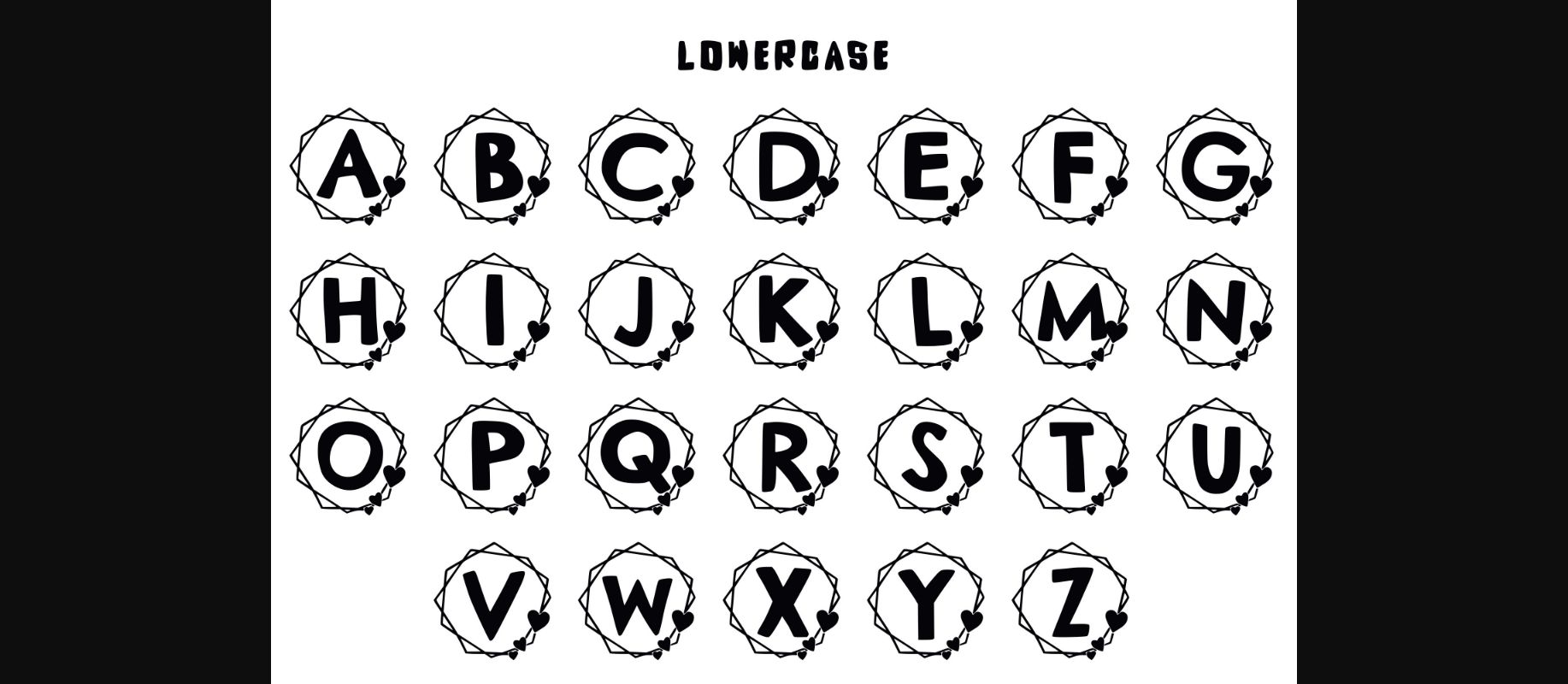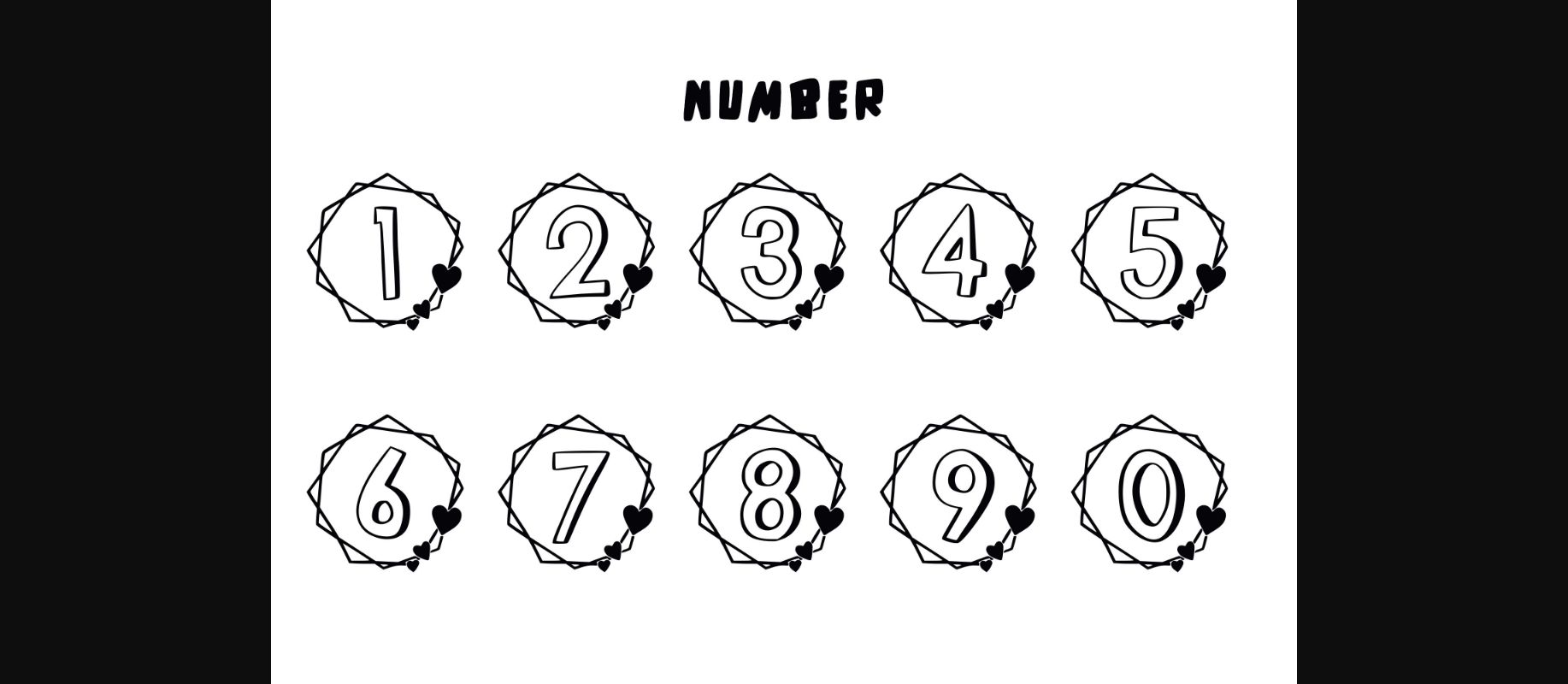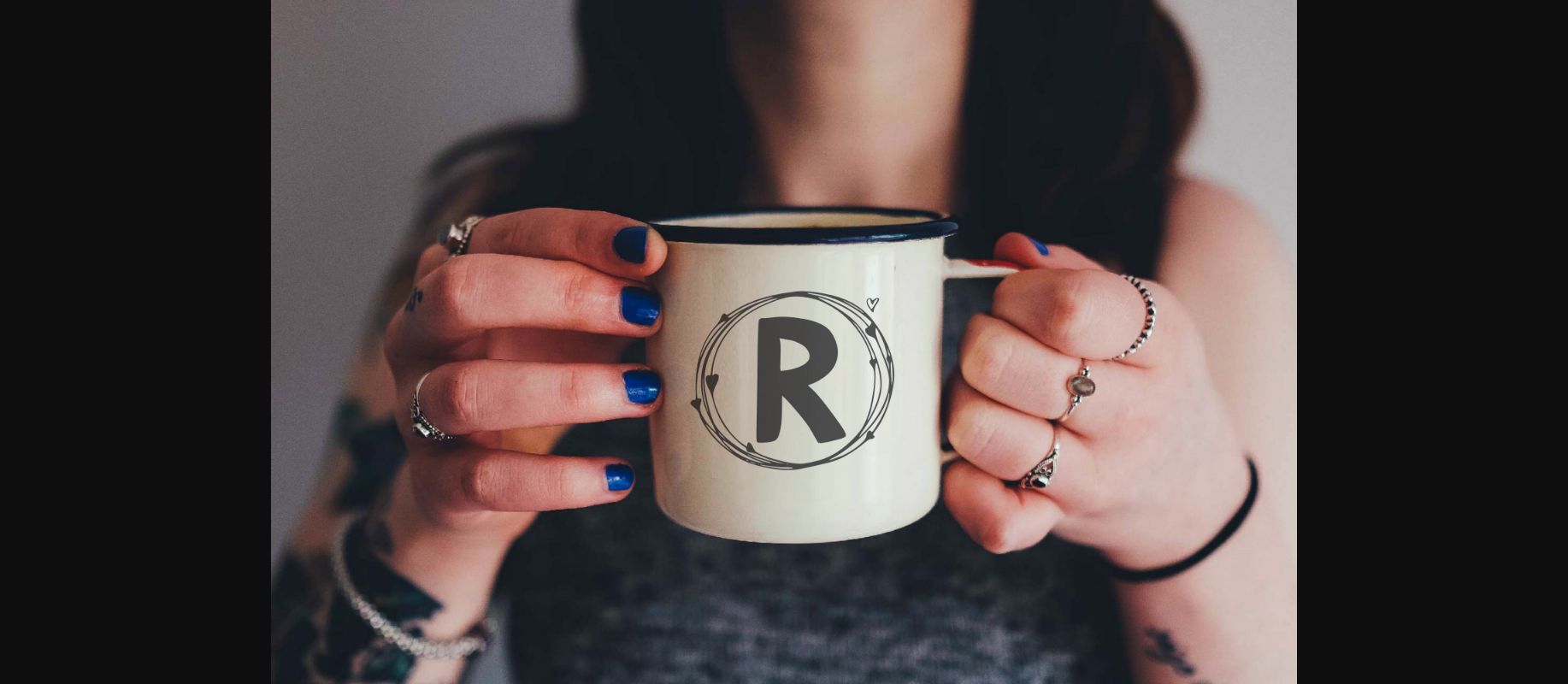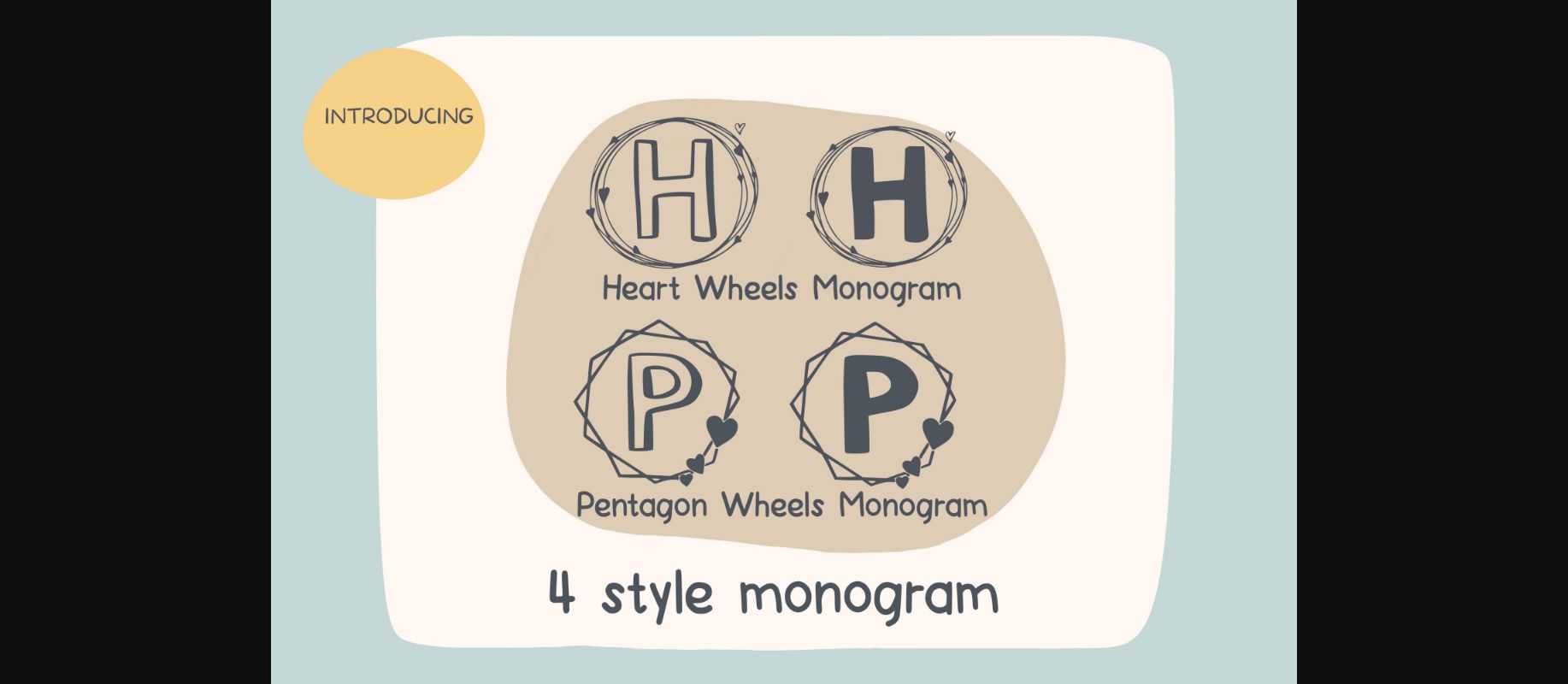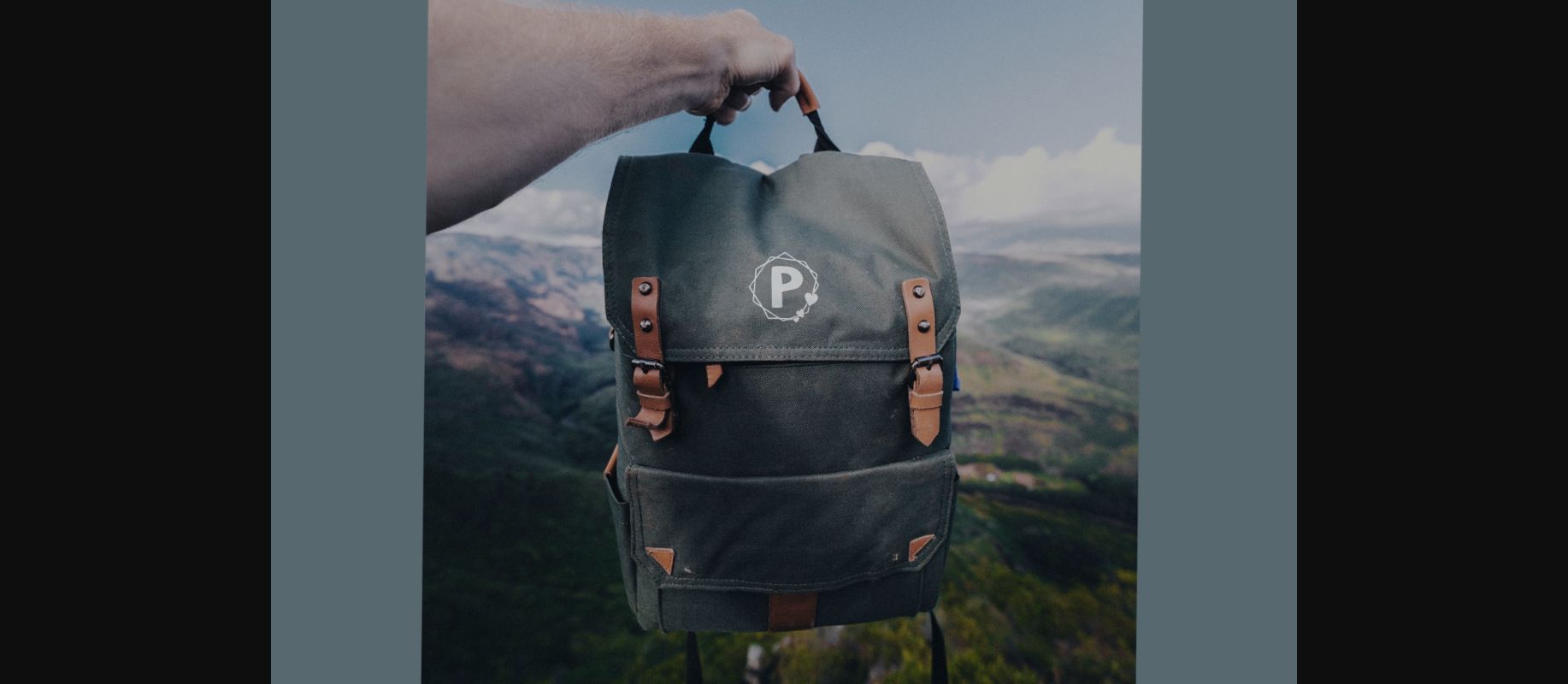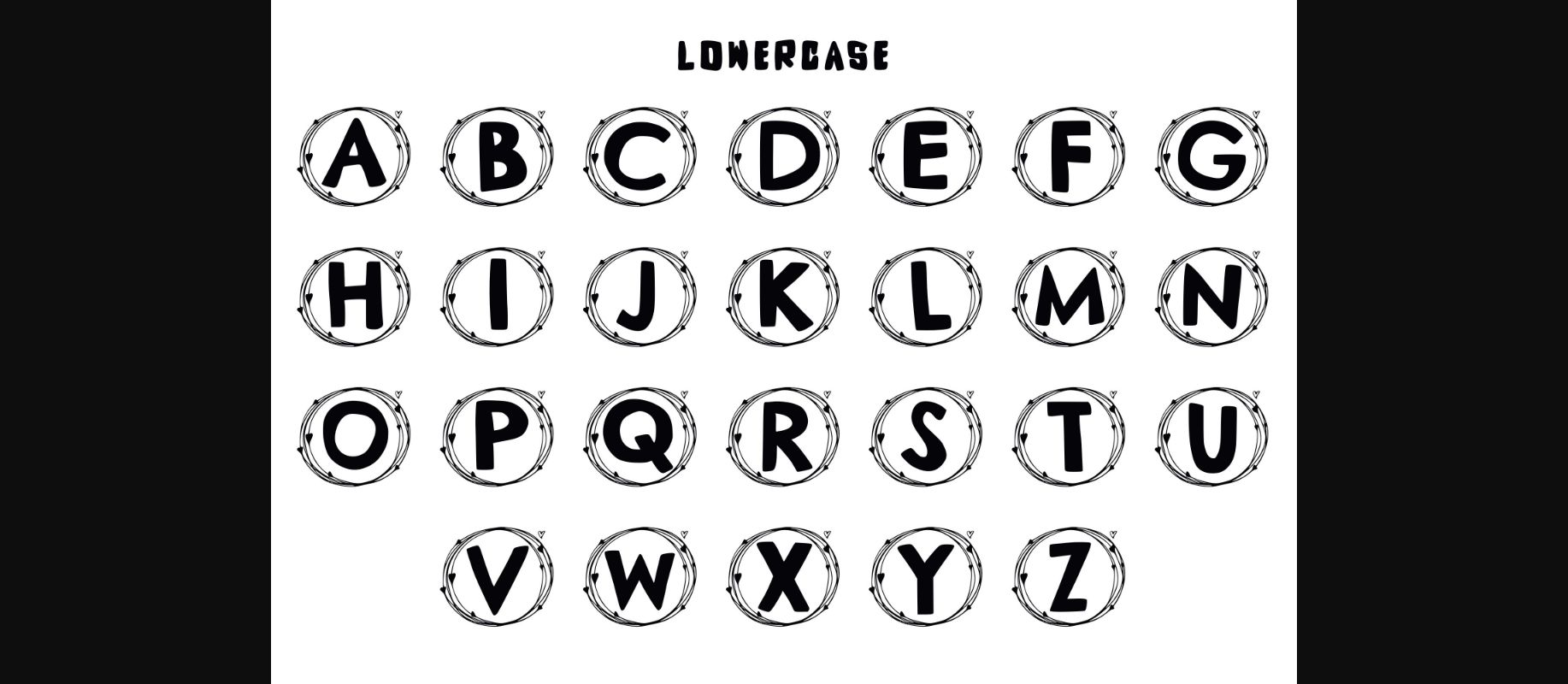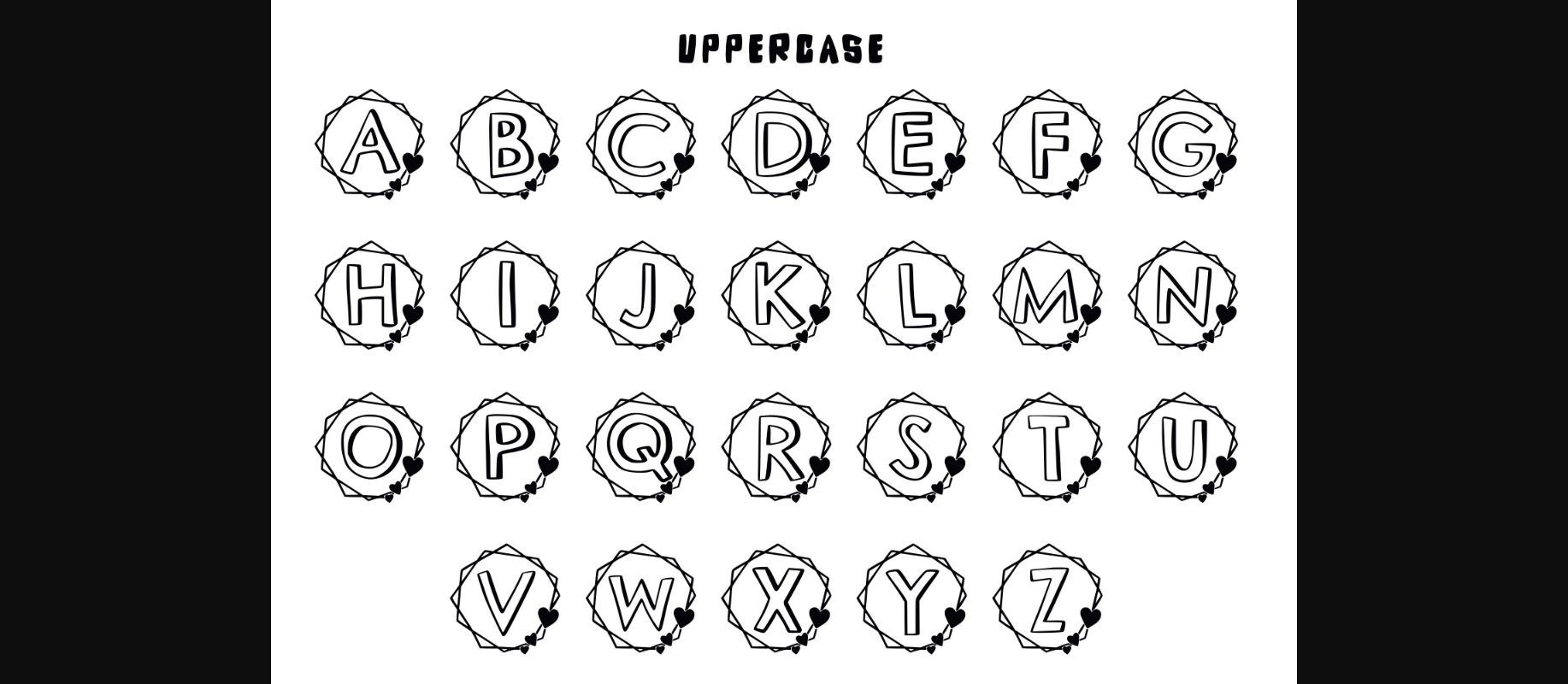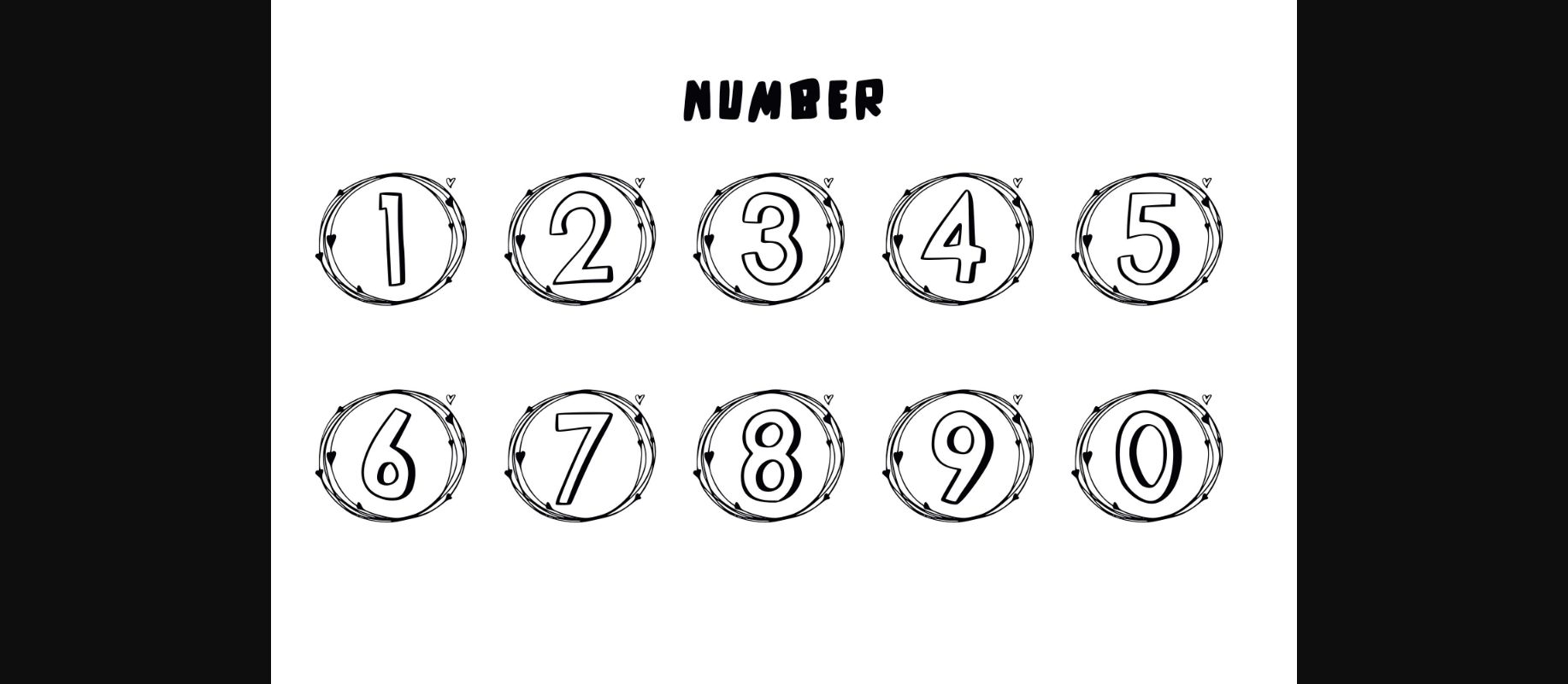
Wheels Set Monogram Font
About Wheels Set Monogram Font
Wheels set monogram decorative font is a set of heart wheels and pentagon wheel monograms. This lovely set looks friendly and perfect for the new generation. Show your love to someone with these letters that look amazing on a gift!